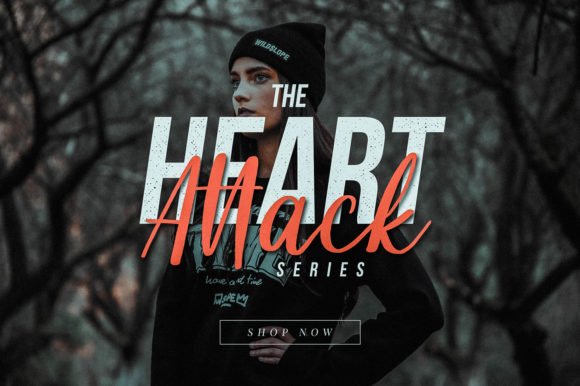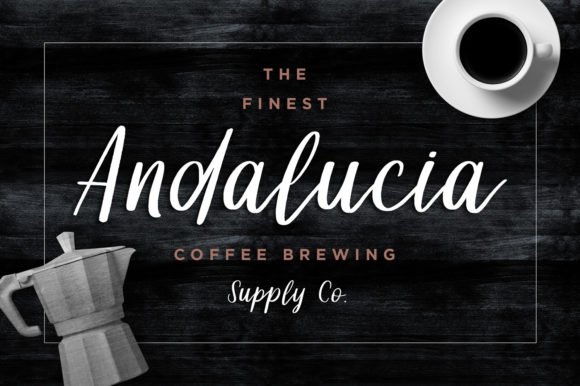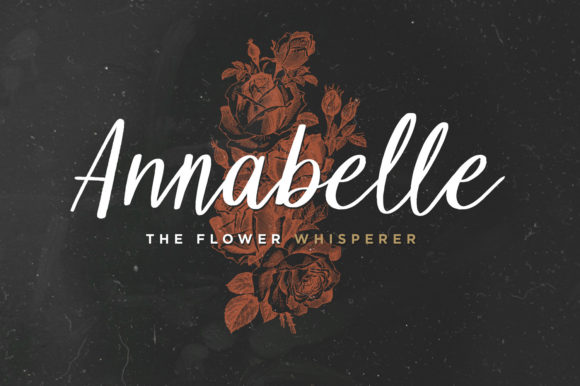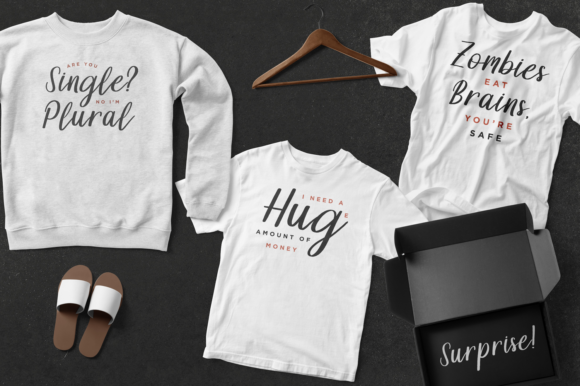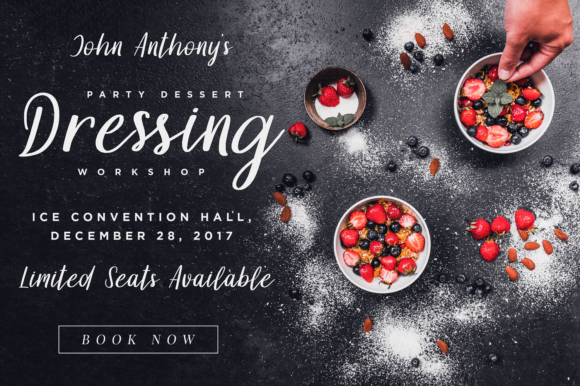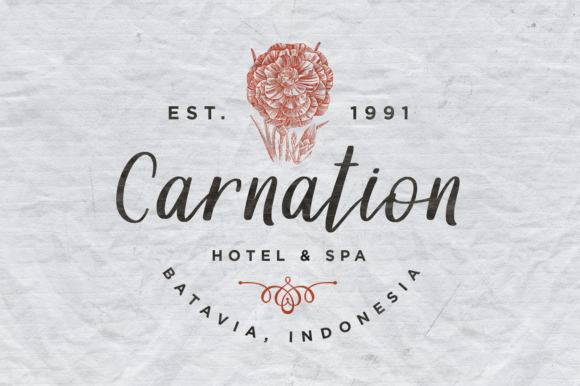
Dollyn Font: Elevate Your Designs with a Flowing and Adaptable Handwritten Style
In the world of typography, a font can make or break a design. It’s the perfect blend of form and function, conveying a message while also evoking an emotional response. For designers and crafters looking to add a touch of elegance and whimsy to their projects, Dollyn Font is an excellent choice. This beautiful, handwritten font is designed to flow effortlessly across various designs, making it a versatile and valuable addition to any creative arsenal.
The Beauty of Dollyn Font
Dollyn Font is a masterpiece of handwritten typography, boasting characters that are not only aesthetically pleasing but also perfectly balanced. Each letter, number, and symbol is crafted with care, ensuring that the font is both easy to read and visually stunning. The flowing nature of Dollyn Font makes it ideal for designs that require a touch of sophistication and elegance, such as wedding invitations, branding materials, and packaging.
Why Dollyn Font Stands Out
So, what sets Dollyn Font apart from other handwritten fonts on the market? Here are a few reasons why designers and crafters are falling in love with this beautiful font:
- Adaptability: Dollyn Font is incredibly versatile, making it suitable for a wide range of designs, from modern and minimalist to vintage and ornate.
- Legibility: Despite its flowing and cursive nature, Dollyn Font remains highly legible, even at smaller sizes.
- Elegance: The font’s elegant and refined appearance makes it perfect for designs that require a touch of sophistication.
- Uniqueness: Dollyn Font has a distinct and recognizable style that sets it apart from more traditional fonts.
How to Use Dollyn Font in Your Designs
Adding Dollyn Font to your design projects is easy and straightforward. Here are a few ideas to get you started:
- Wedding Invitations: Use Dollyn Font to create beautiful and elegant wedding invitations that set the tone for a special day.
- Branding Materials: Add a touch of sophistication to your branding materials, such as business cards, letterheads, and packaging.
- Digital Products: Use Dollyn Font to create eye-catching digital products, such as ebooks, workbooks, and printables.
- Crafting Projects: Add a personal touch to your crafting projects, such as handmade cards, gift tags, and scrapbooking pages.
Tips for Getting the Most Out of Dollyn Font
To truly make Dollyn Font shine in your designs, here are a few tips to keep in mind:
- Experiment with Pairings: Try pairing Dollyn Font with other fonts to create a unique and visually appealing combination.
- Play with Size and Color: Experiment with different sizes and colors to add depth and interest to your designs.
- Add Texture and Patterns: Add texture and patterns to your designs to give them an extra layer of visual interest.
Dollyn Font is a beautiful and versatile handwritten font that can elevate any design. Its flowing and adaptable nature makes it perfect for a wide range of projects, from wedding invitations to digital products. With its elegant and refined appearance, Dollyn Font is sure to become a go-to choice for designers and crafters looking to add a touch of sophistication and whimsy to their work. So why wait? Add Dollyn Font to your creative arsenal today and watch your designs come alive!